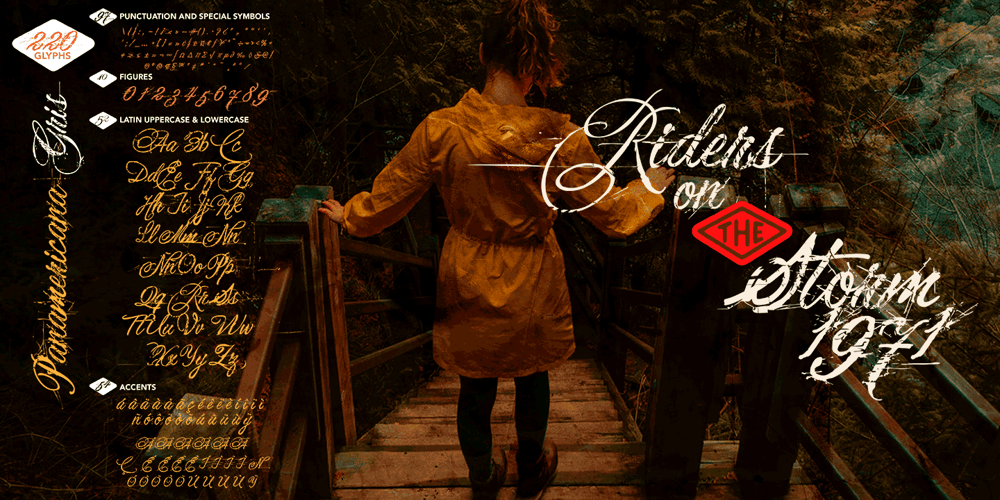
Panamericana Font Family was designed by Carlos Fabián Camargo Guerrero and published by Andinistas. Panamericana contains 10 styles and family package options. @andinistas presents an update of Panamericana in 2019, a typographic family worn out and expressive with 10 fonts perfect for short writings with cursive and stained calligraphic look. Panamericana works perfectly in headlines or logos of a film because its different thicknesses of corrosion and textures guarantee striking messages on t-shirts, stickers, skateboards, magazines, printed quotes, packaging, headings and all the designs you can imagine. Panamericana works best by exchanging and mixing letter by letter among its 10 fonts. In this way, you will take advantage of its corrosion levels by mixing the 3 uppercase, lowercase and ideal calipers for the beginning, middle or end of words, phrases or short paragraphs. Each empty and full Panamerican area was designed with care, care and attention and that is why its more than 2000 glyphs were carefully planned in 10 fonts designed for maximum performance in compositions that need scruffy and creative visual properties.